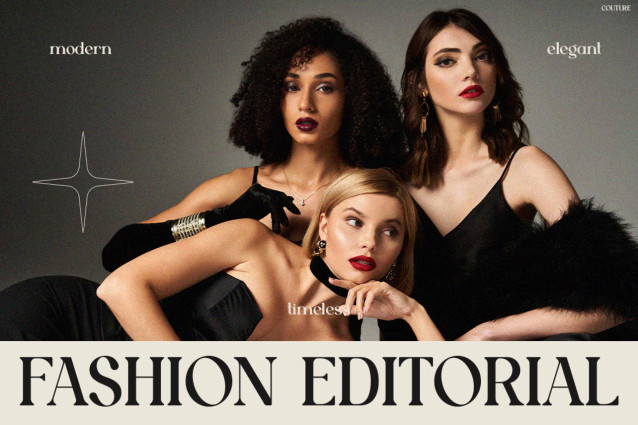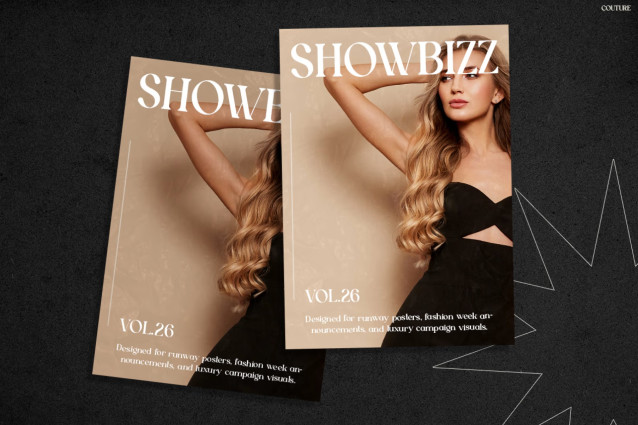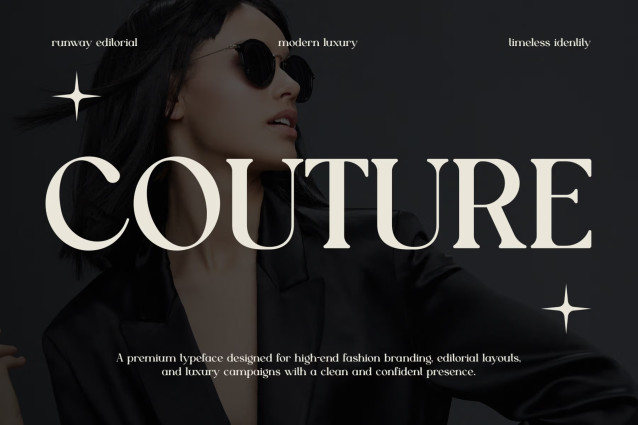
Couture Font
Instagram Font Couture defines sophistication with its refined serif structure, while also delivering a striking balance between modern minimalism and timeless luxury. Moreover, its high-contrast strokes and sharp details immediately create a premium visual impact. As a result, every letter feels intentional, polished, and fashion-forward.
In addition, the graceful curves and clean spacing enhance readability, even in complex layouts. Not only does this font elevate headlines, but it also performs beautifully in editorial compositions. Therefore, it becomes a powerful tool for designers who want to communicate elegance with clarity.